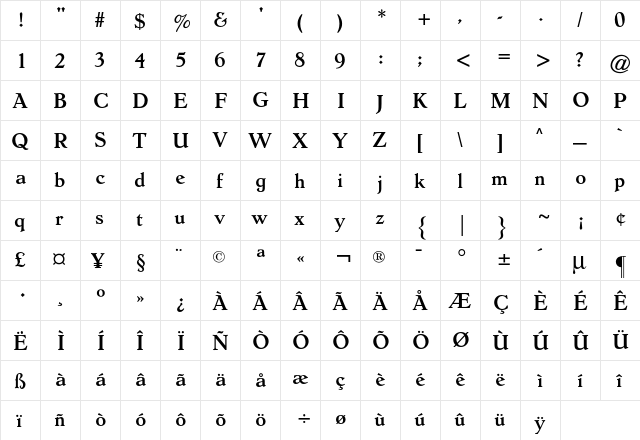
Hollandse CG Bold
Design Context for Hollandse CG Typeface
Hollandse CG offers clean, dependable letterforms without strong stylistic allegiance, making it a practical choice for designers who need flexibility. Its bold stroke weight gives it real presence on the page.